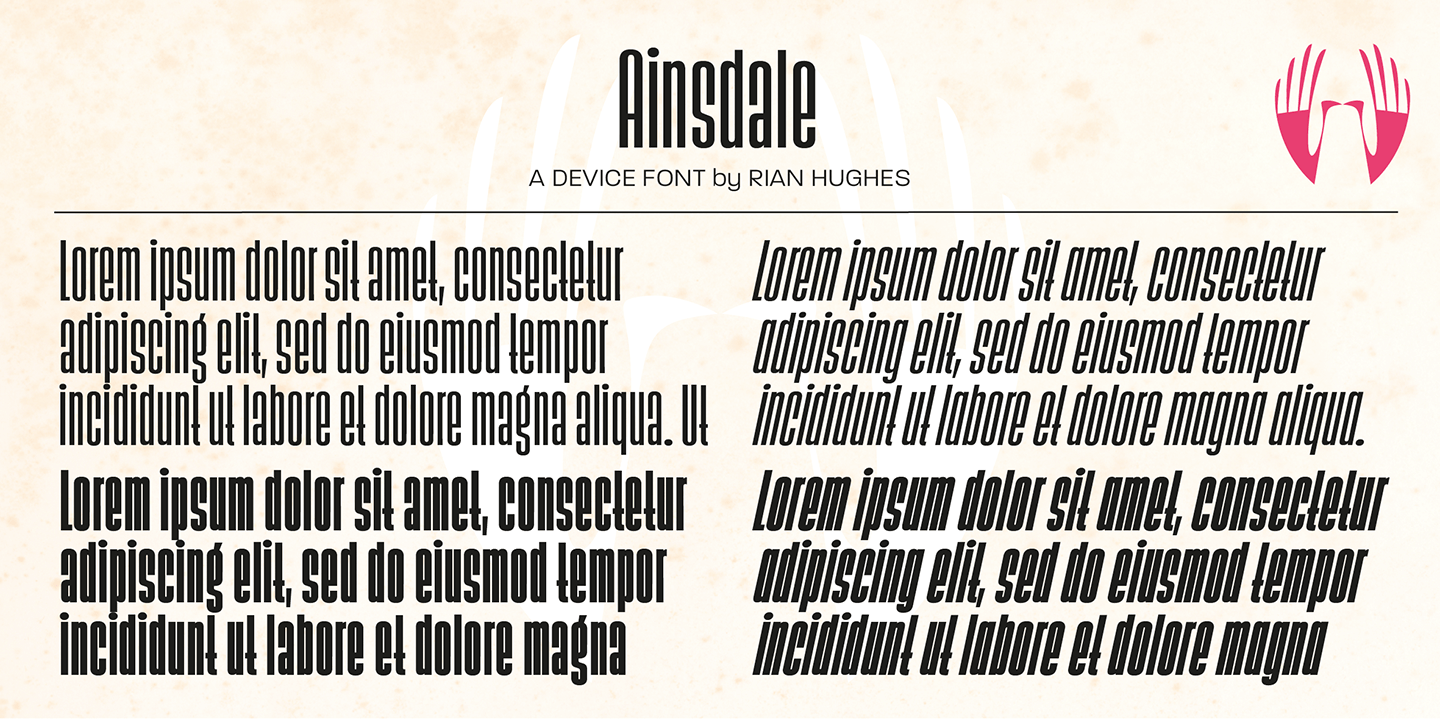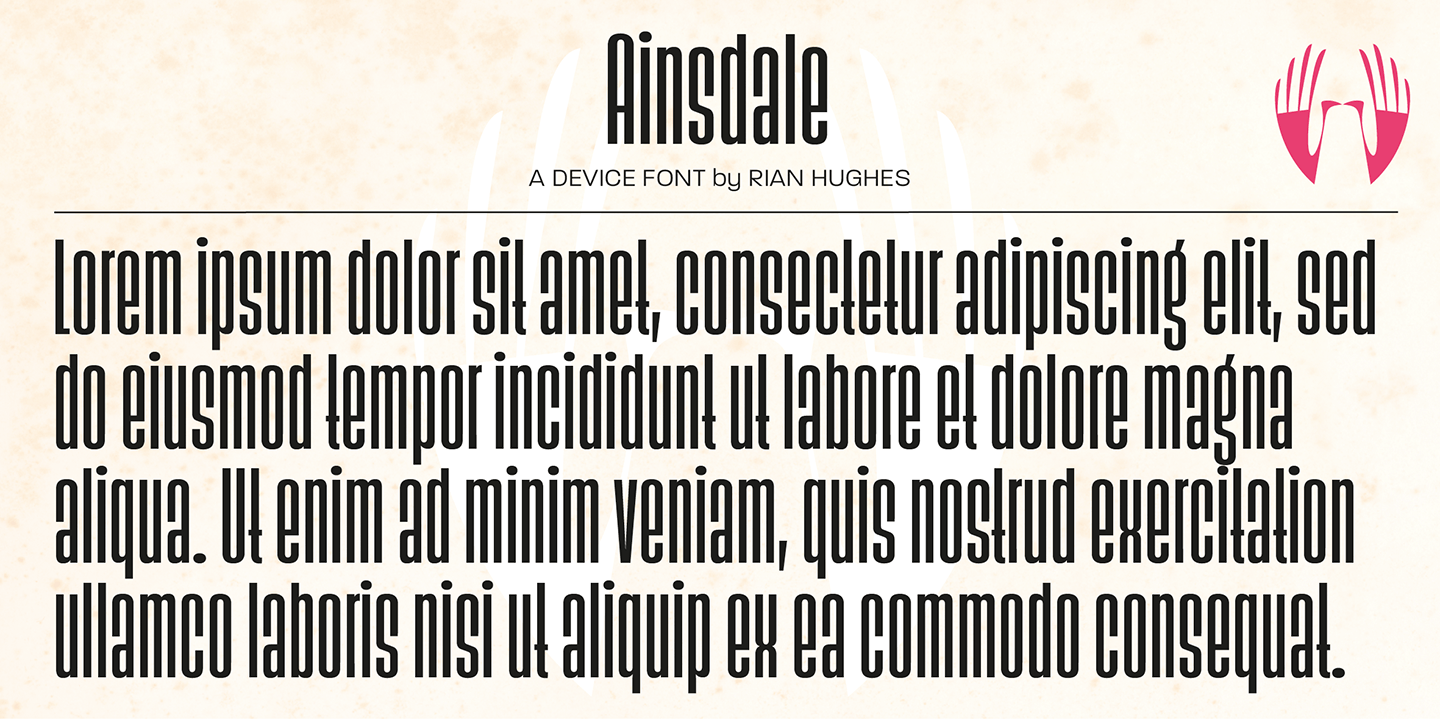
Ainsdale
Font Family by Device
Ainsdale is a groovy sans serif with a distinctly late-1960s to 1970s feel, pairing rounded, expressive shapes with a smooth retro attitude. It has the kind of easy visual swing that brings warmth and personality to display typography while still feeling clean and readable.
This family includes 4 styles: Medium, Medium Italic, Bold, and Bold Italic. That compact range makes it useful for logos, posters, packaging, branding, and other headline work where you want a nostalgic voice with enough variation to build contrast and emphasis.
Designed by Device, Ainsdale is a strong choice for projects that lean vintage, playful, or culture-driven without losing structure. Use it when you want retro flavor that feels graphic and confident rather than overly decorative.